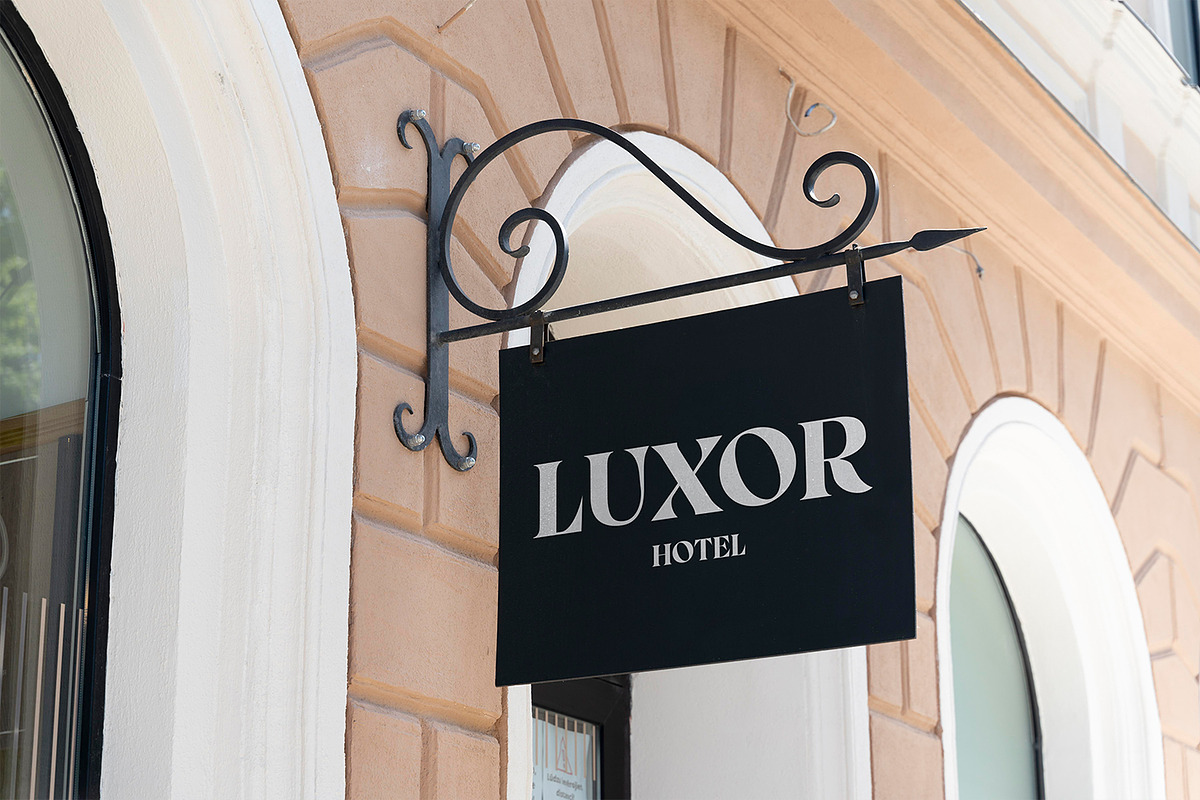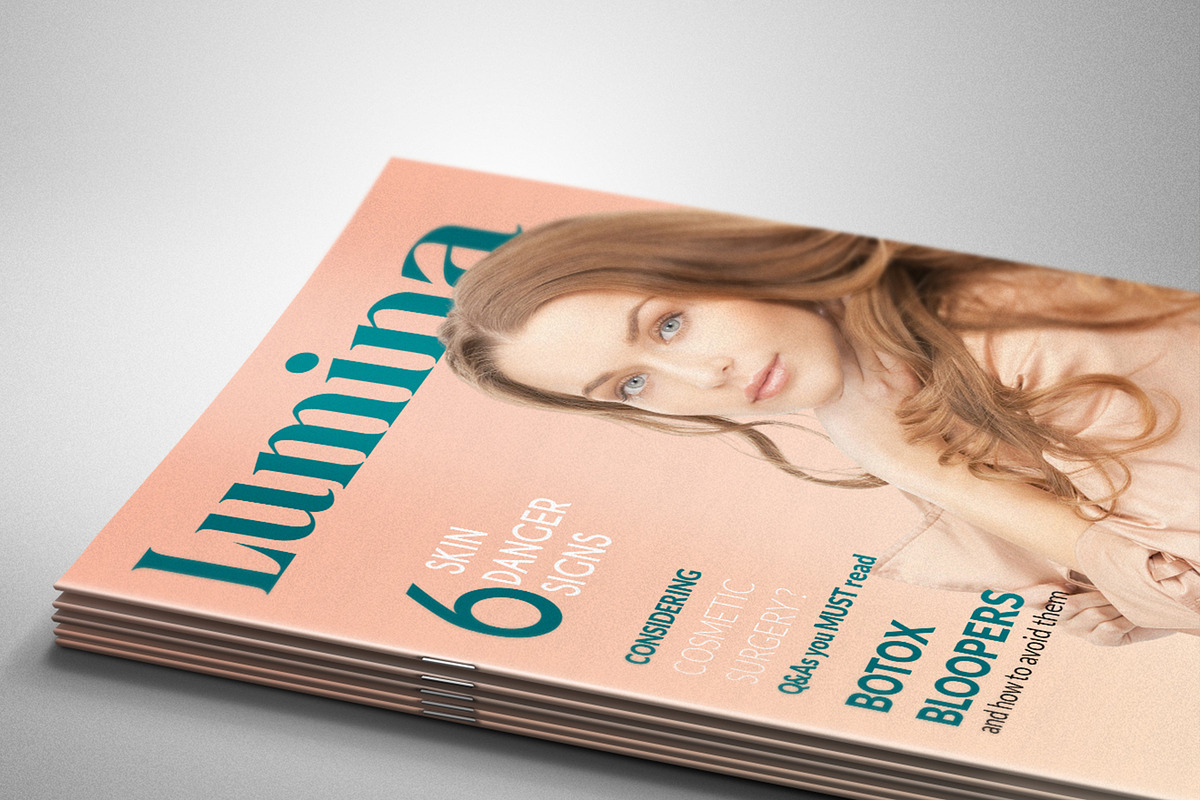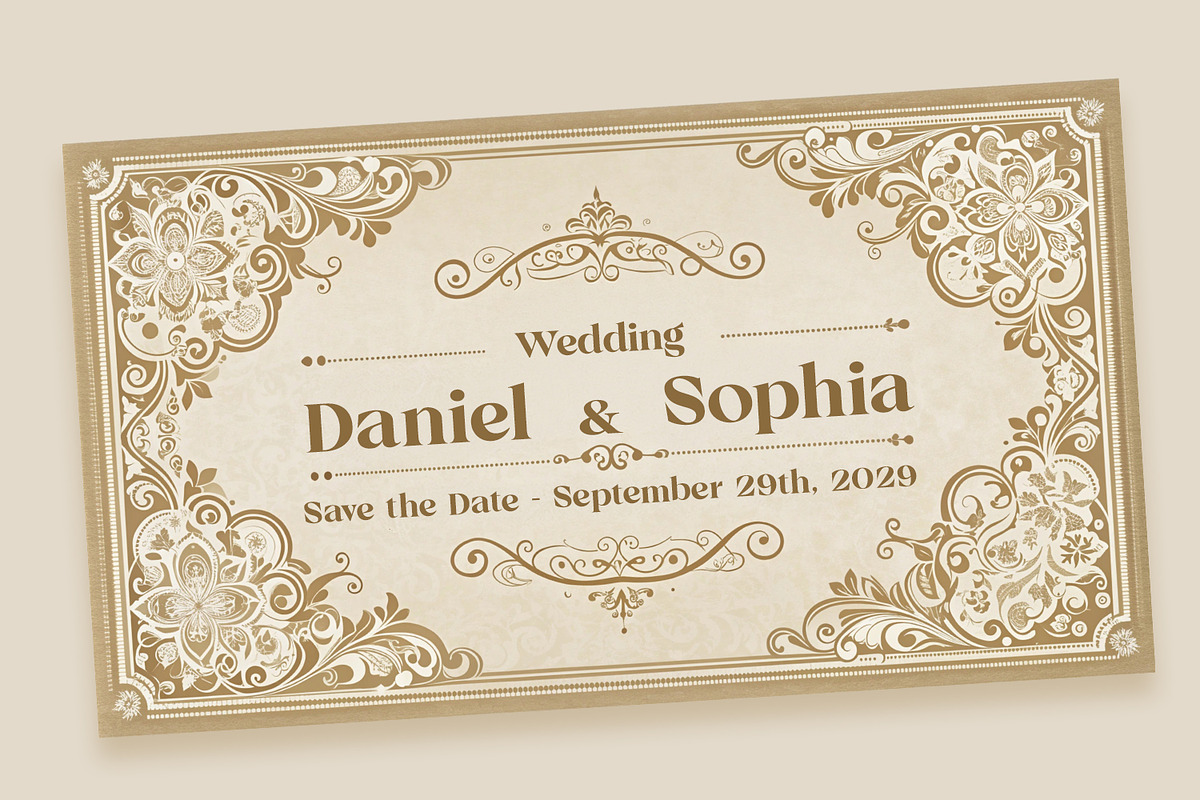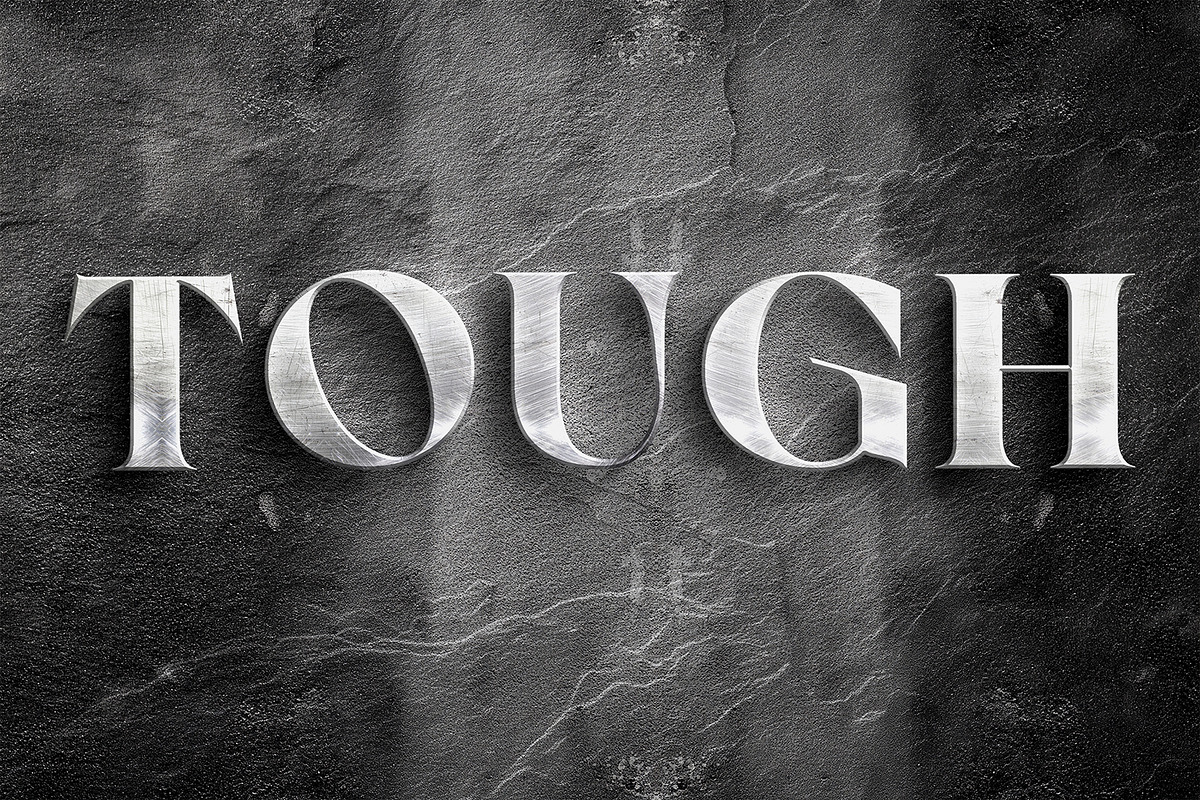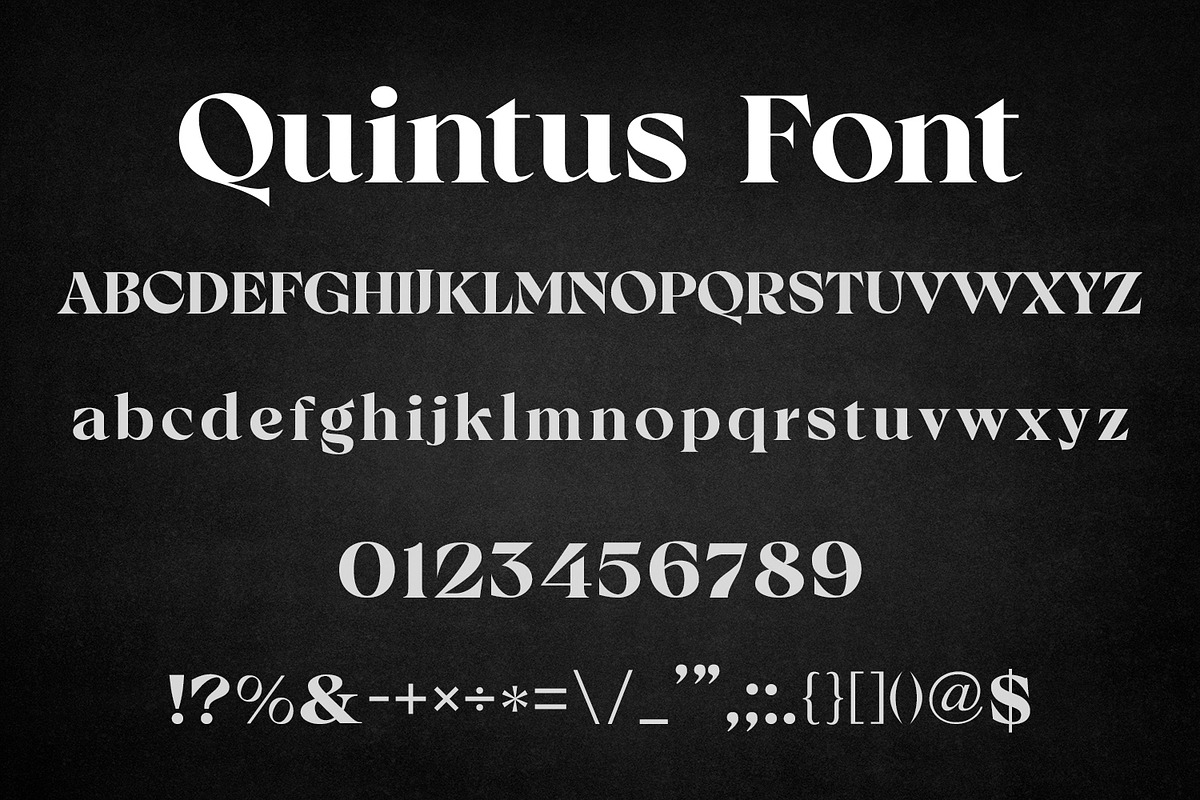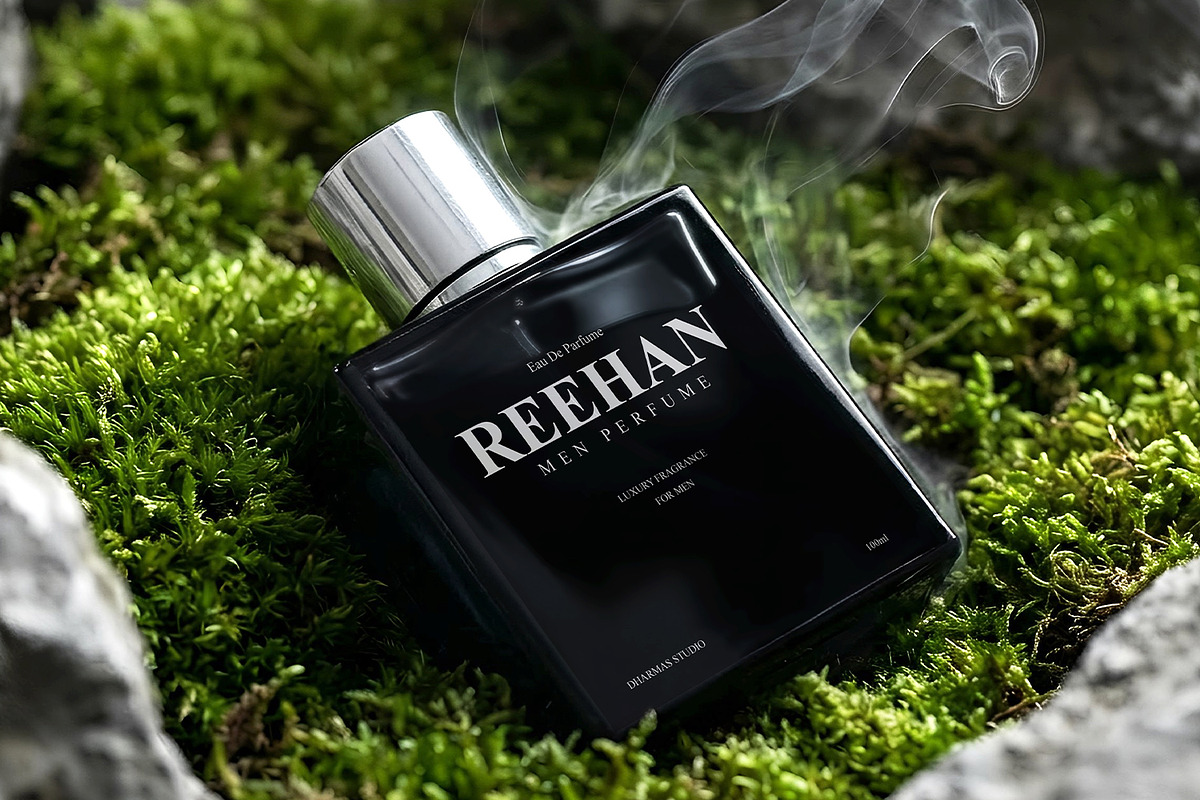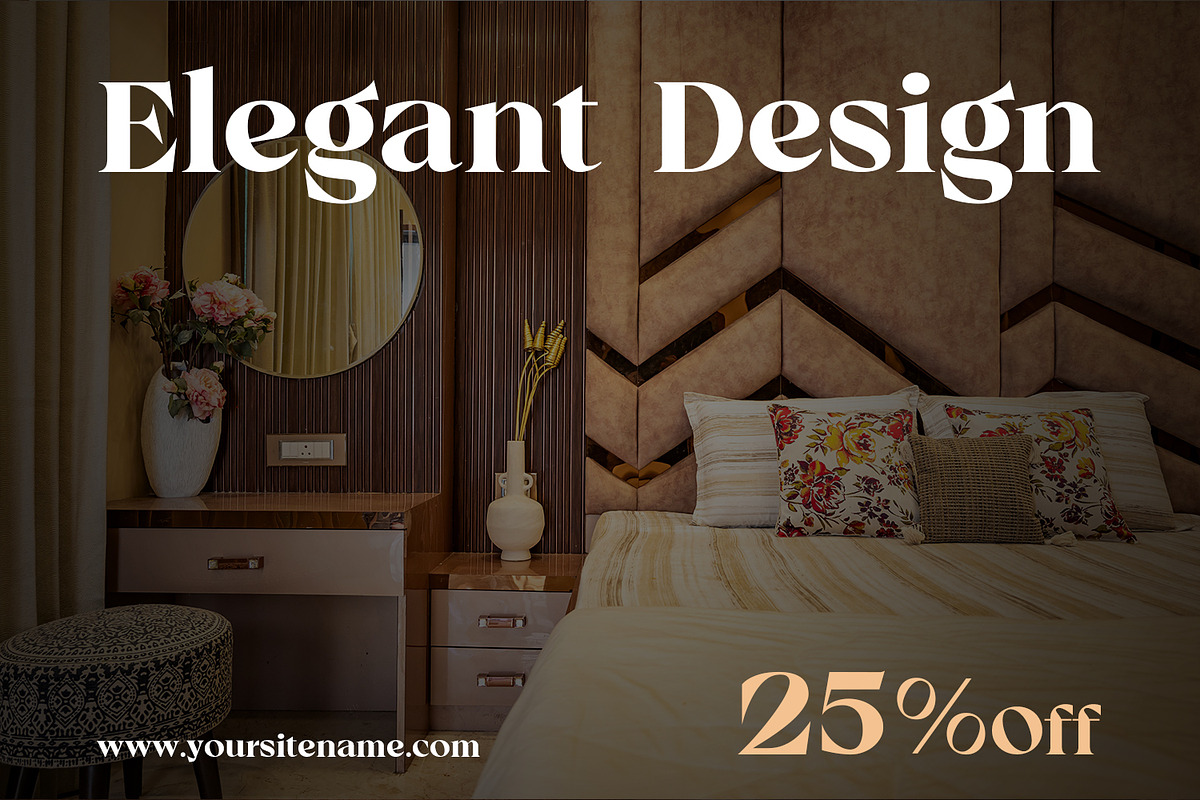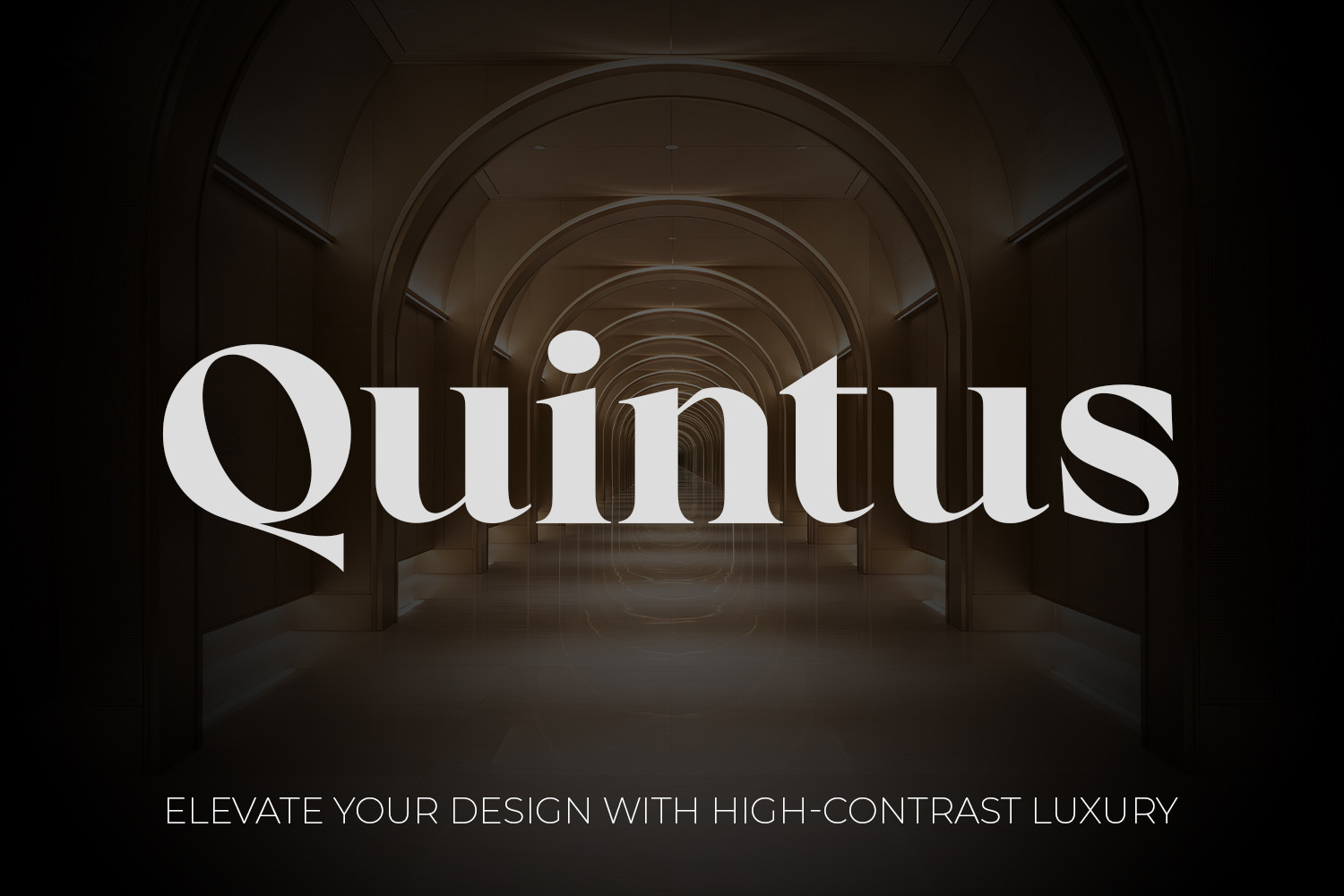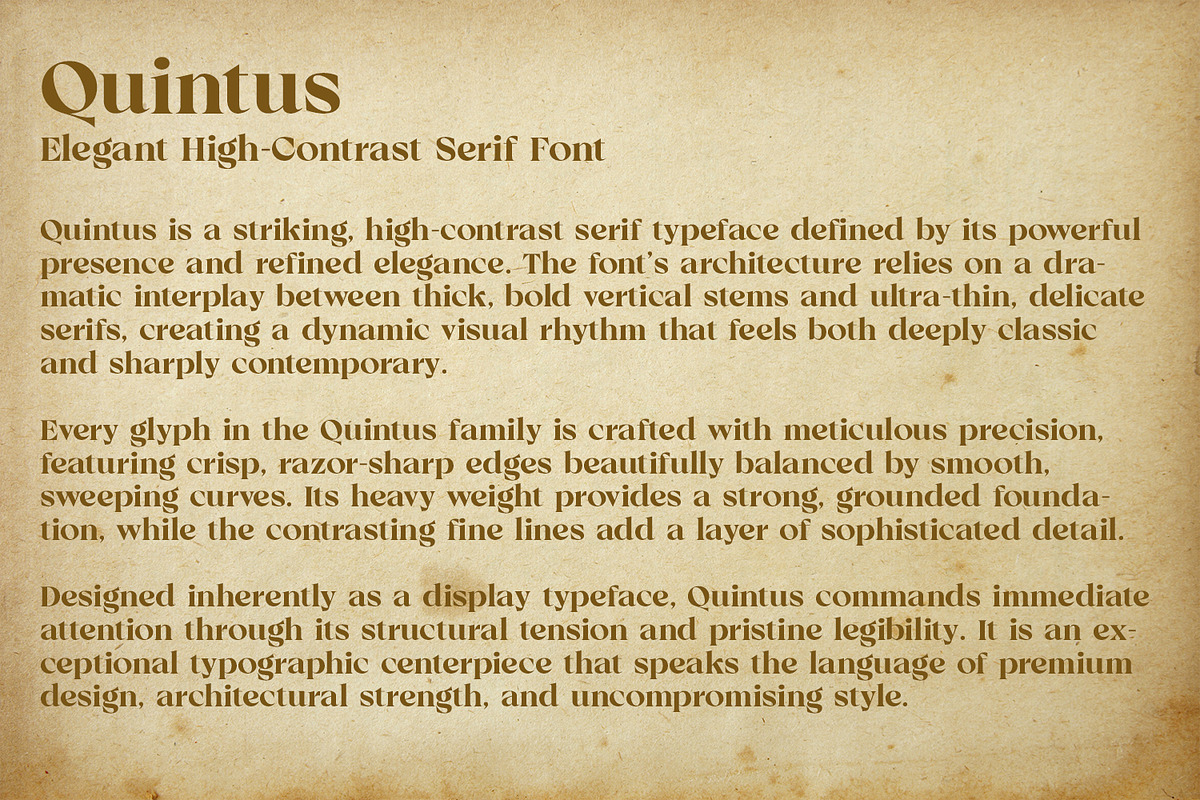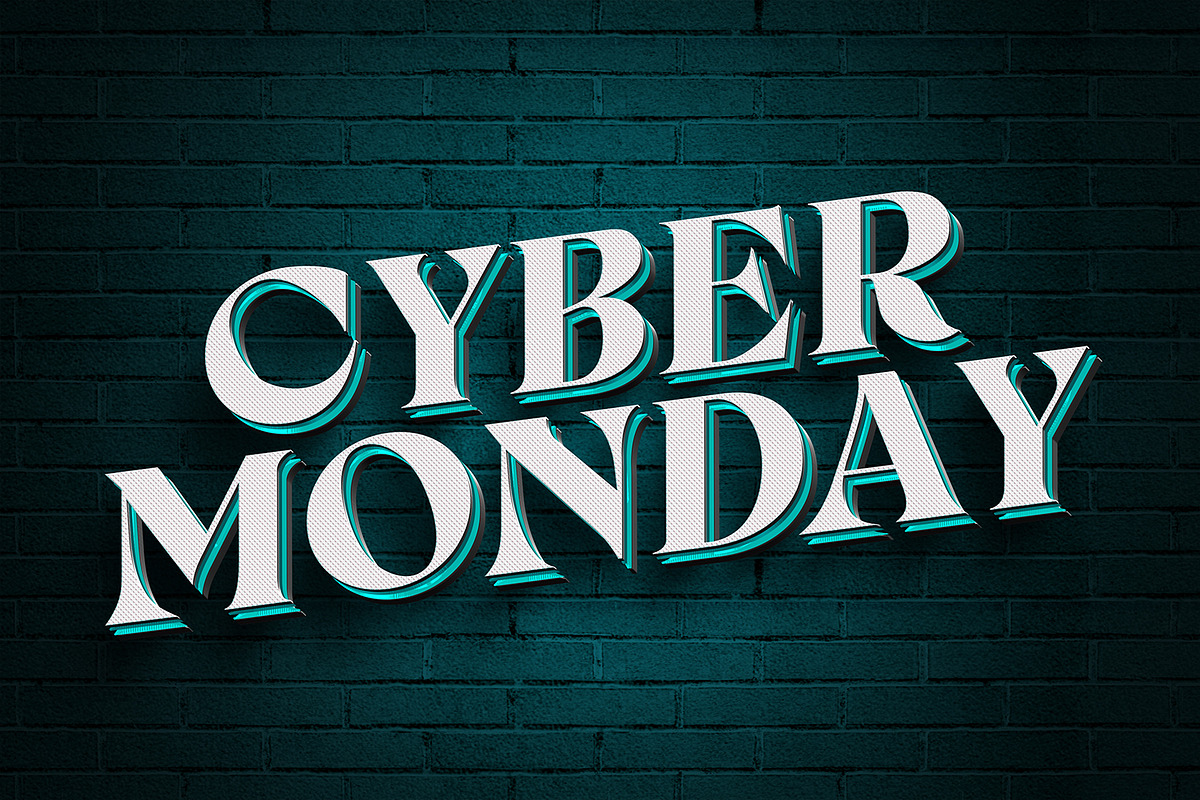
Quintus High Contrast Serif Font
Quintus is a striking, high-contrast serif typeface defined by its powerful presence and refined elegance. The font's architecture relies on a dramatic interplay between thick, bold vertical stems and ultra-thin, delicate serifs, creating a dynamic visual rhythm that feels both deeply classic and sharply contemporary. Every glyph is crafted with meticulous precision, providing a strong, grounded foundation balanced by sophisticated, razor-sharp details. Designed inherently as a display typeface, Quintus commands immediate attention and offers pristine legibility. It is an exceptional typographic centerpiece perfect for luxury branding, editorial layouts, beauty cosmetics, premium product packaging, wedding invitations, and strong architectural headlines.